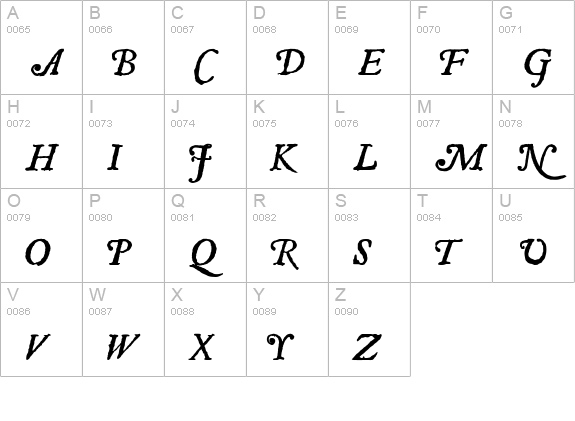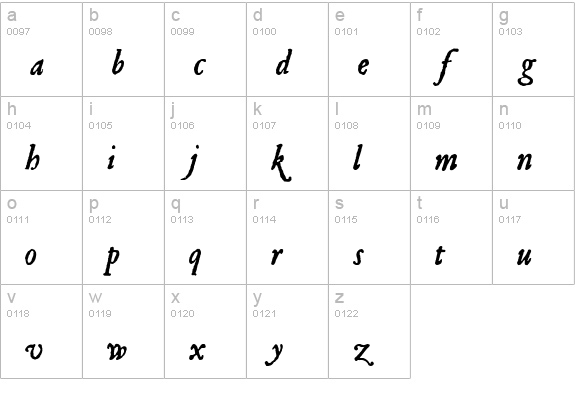
JSL Ancient Italic Font Details
JSL Ancient Italic is a distinctive, italic variant in the JSL typeface family \xE2\x80\x94 well suited to design and typography projects.
Introducing the captivating JSL Ancient Italic font, a magnificent typeface that effortlessly transports you to an era of elegance and grandeur. With its timeless allure, this font pays homage to the ancient Italic scripts, evoking a sense of historical richness and cultural significance. JSL Ancient Italic is meticulously crafted with intricate details, showcasing the beauty of calligraphic strokes and delicate curves. This font embodies the essence of classical artistry, making it an ideal choice for projects that require a touch of sophistication and prestige. The versatility of JSL Ancient Italic shines through in its ability to enhance a wide range of design applications. Whether it be creating stunning logos, designing elegant invitations, or crafting eye-catching headlines, this font effortlessly elevates any project to new heights. And the best part? JSL Ancient Italic is available for free download at FontsMarket.com. That's right, you can now access this exceptional font, without any cost. So why wait? Unleash your creativity and embrace the timeless beauty of JSL Ancient Italic today.